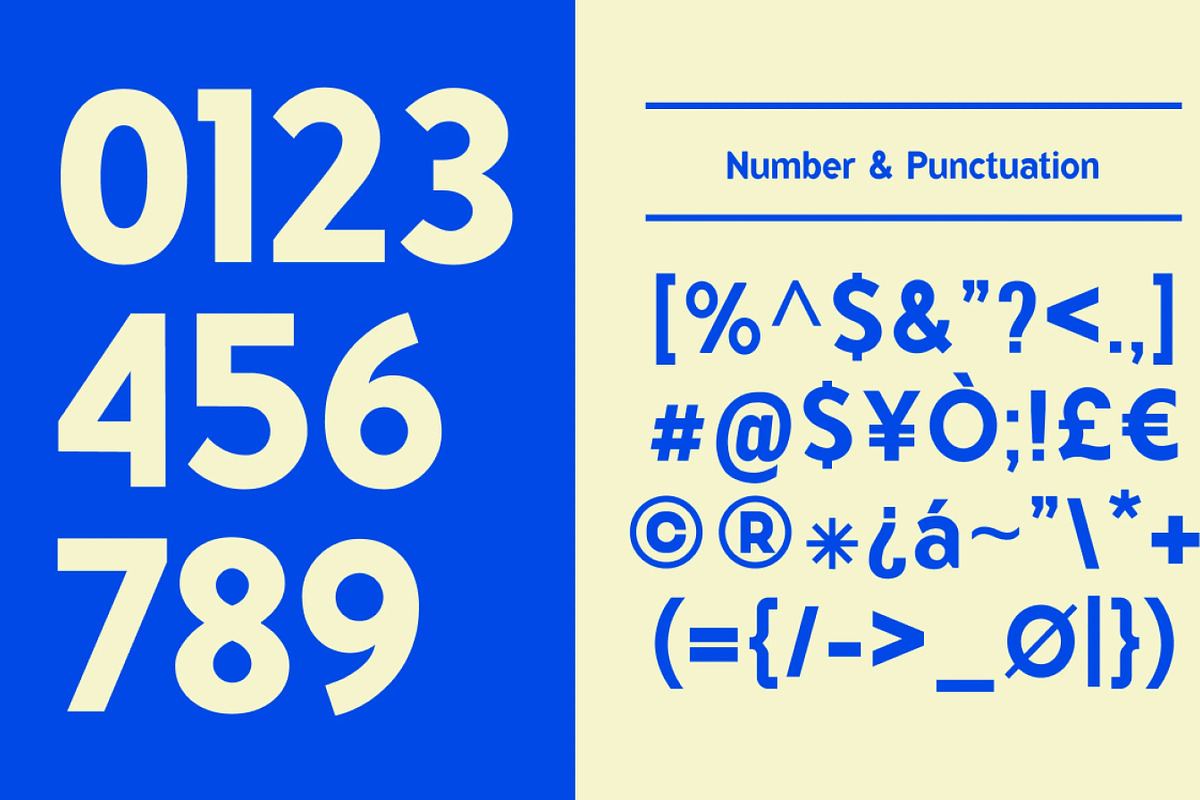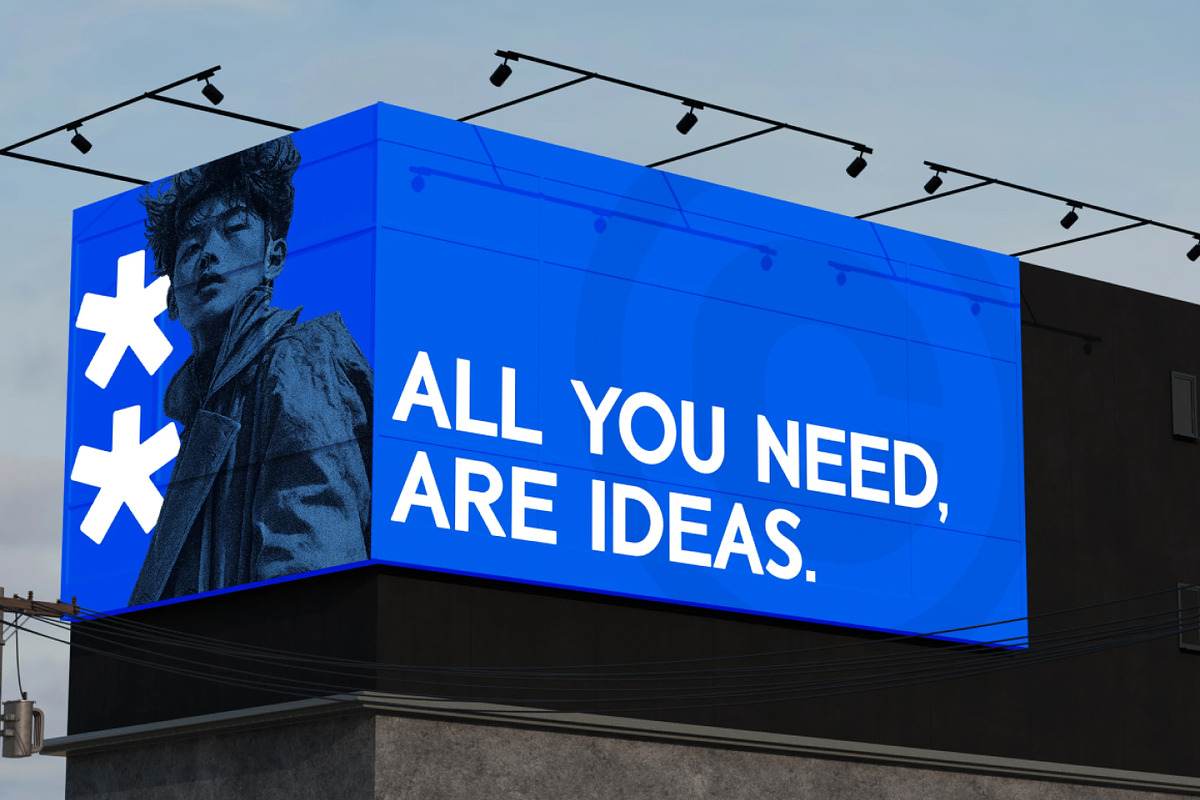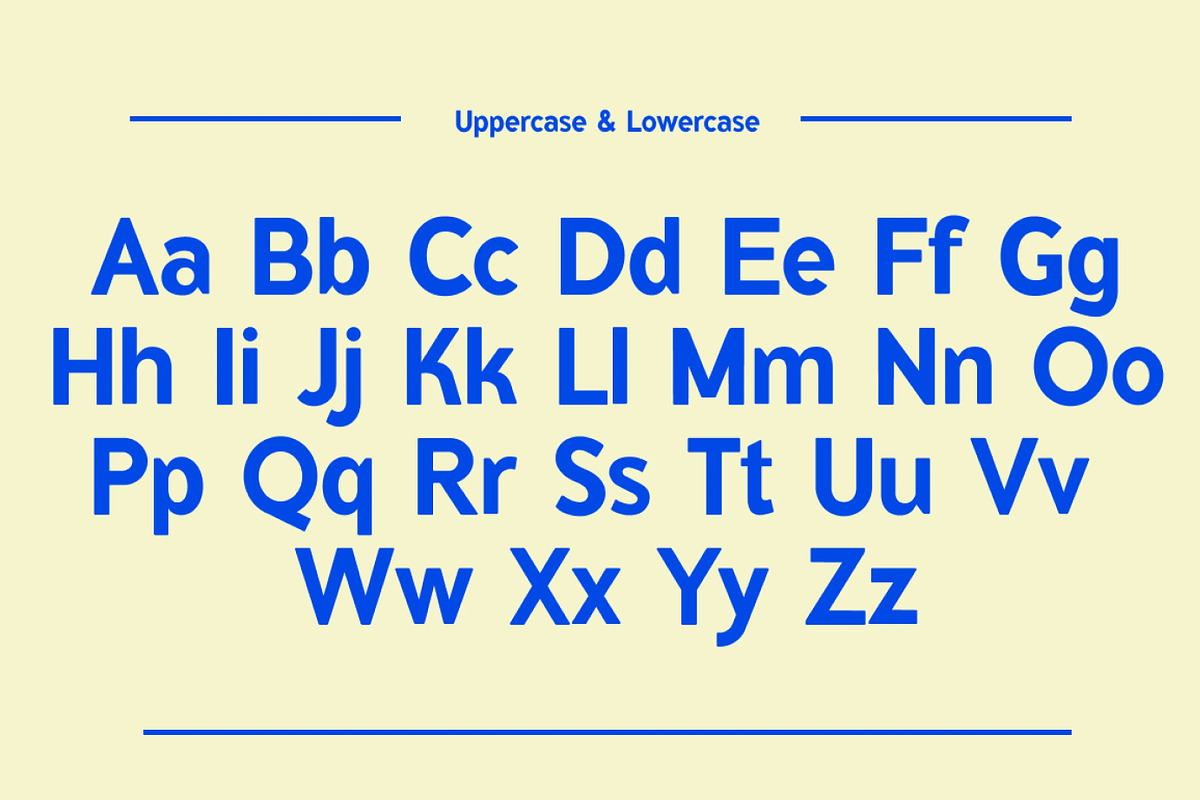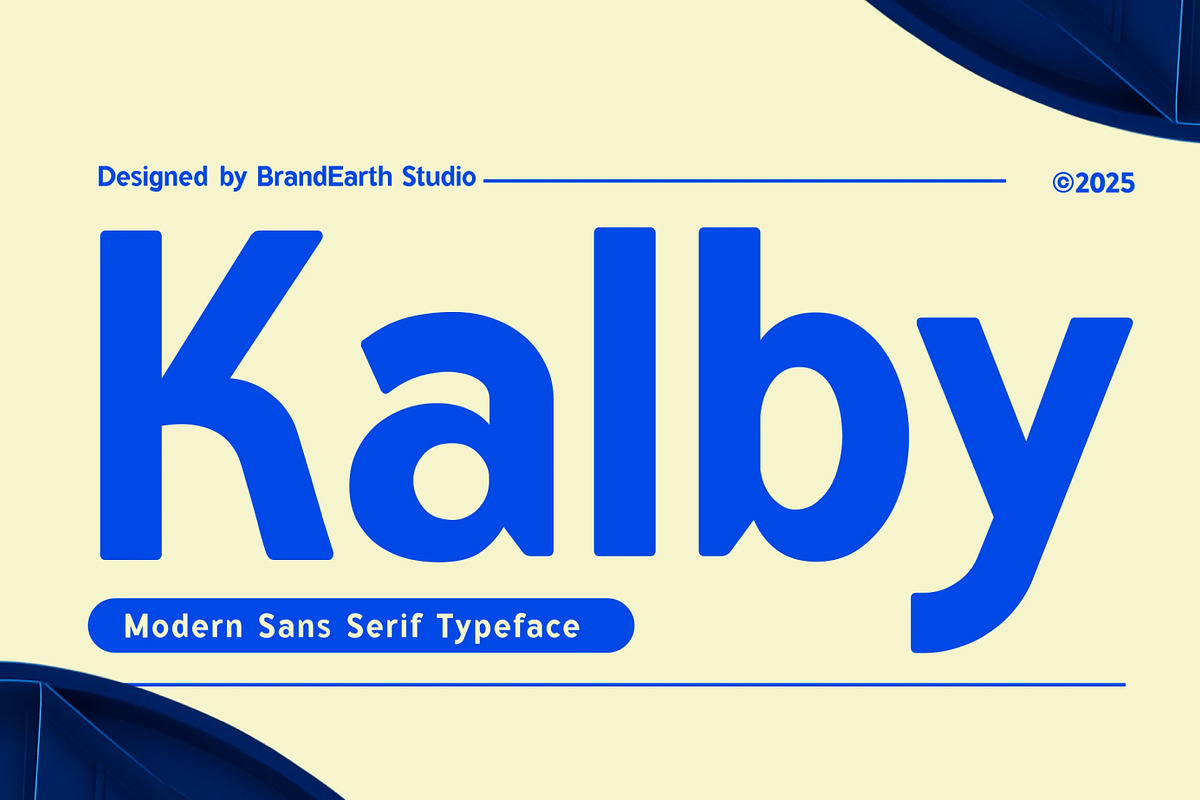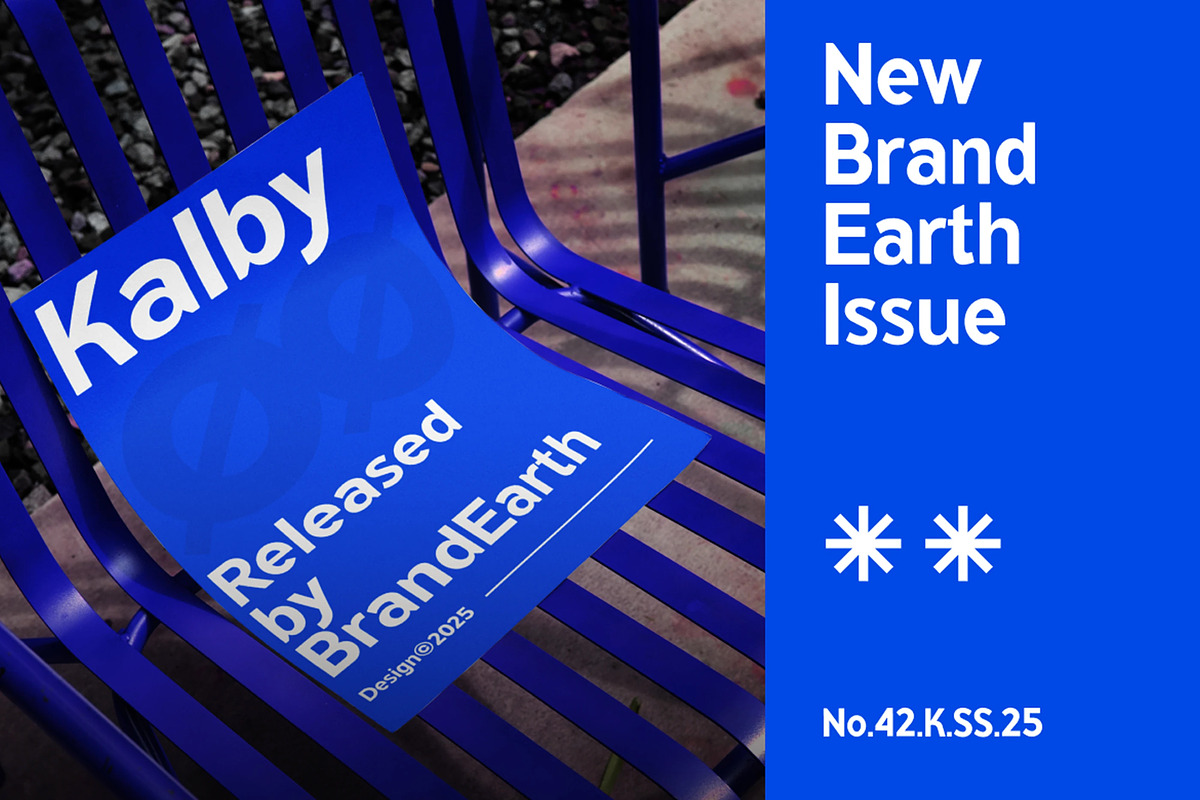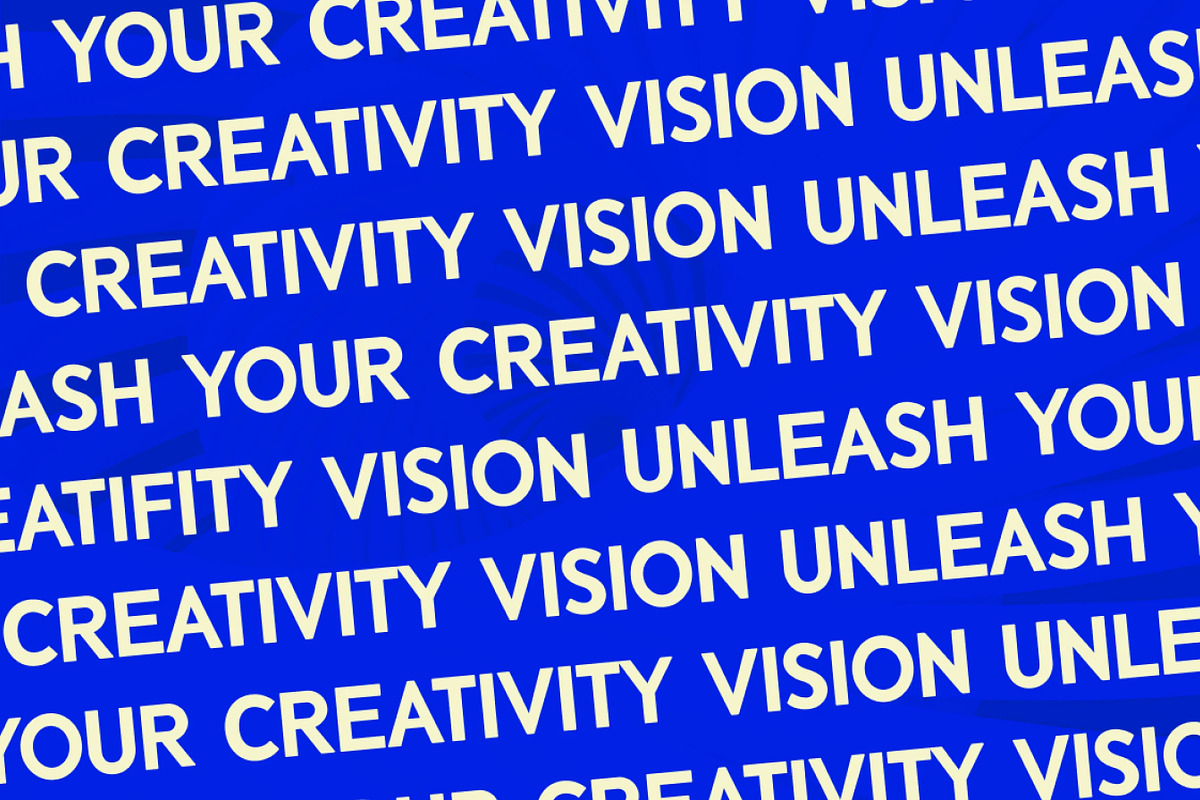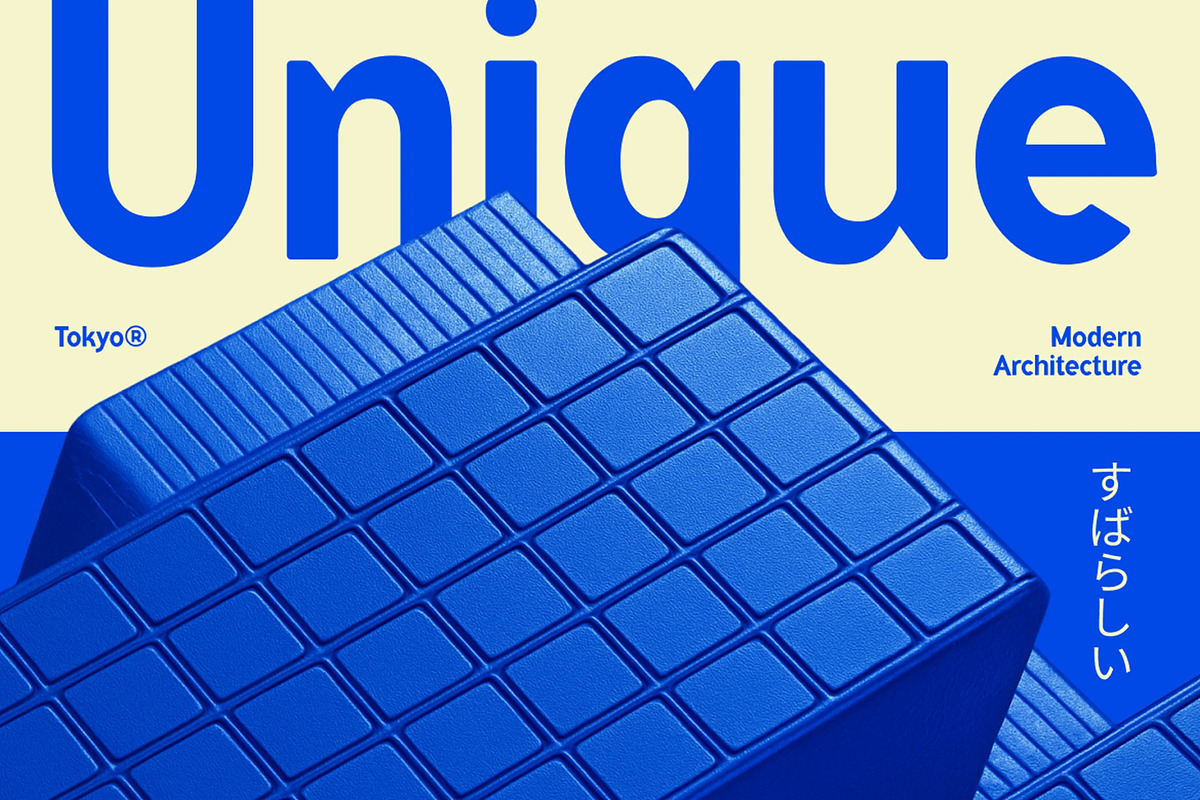
Kalby - Bold Rounded Sans Serif
Kalby brings a clean, confident modernity to any design. Designed to evoke a sense of clarity and assurance, it blends effortlessly into editorial and startup branding contexts. Its energy is friendly yet assertive, geometrically refined—perfect for those looking to elevate their brand with a fresh, polished visual identity without compromising personality.
The letterforms in Kalby are carefully crafted with soft curves, solid structure, and balanced proportions that give the typeface a smooth, rounded, and geometrically refined appearance. It features a minimalist sans-serif clarity that is perfect for editorial layouts, startup branding, creative portfolios, and clean digital media—especially where readability and style must go hand in hand.
With its clean, confident forms and polished structure, Kalby bridges the gap between simplicity and personality. It provides a touch of professionalism while remaining approachable, making it ideal for lifestyle magazines, personal branding, headline compositions, and businesses that value clarity and elegance.
Suitable For: modern branding, logo design, editorial layouts, creative portfolios, digital media, advertisements, environmental graphics, architectural signage, packaging, startup branding, personal branding, social media graphics, magazine headlines, poster design, app UI, website headers, product labels, business cards, and presentation design.